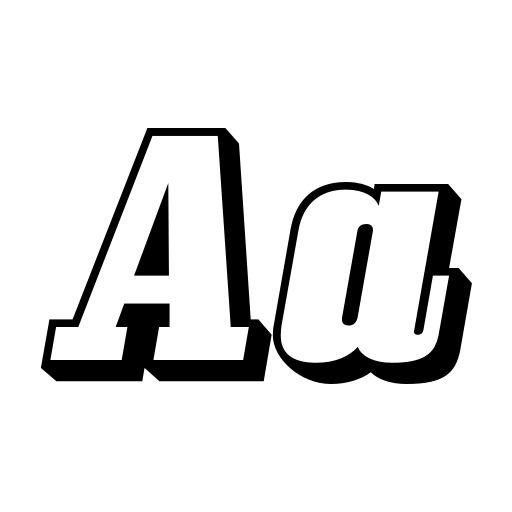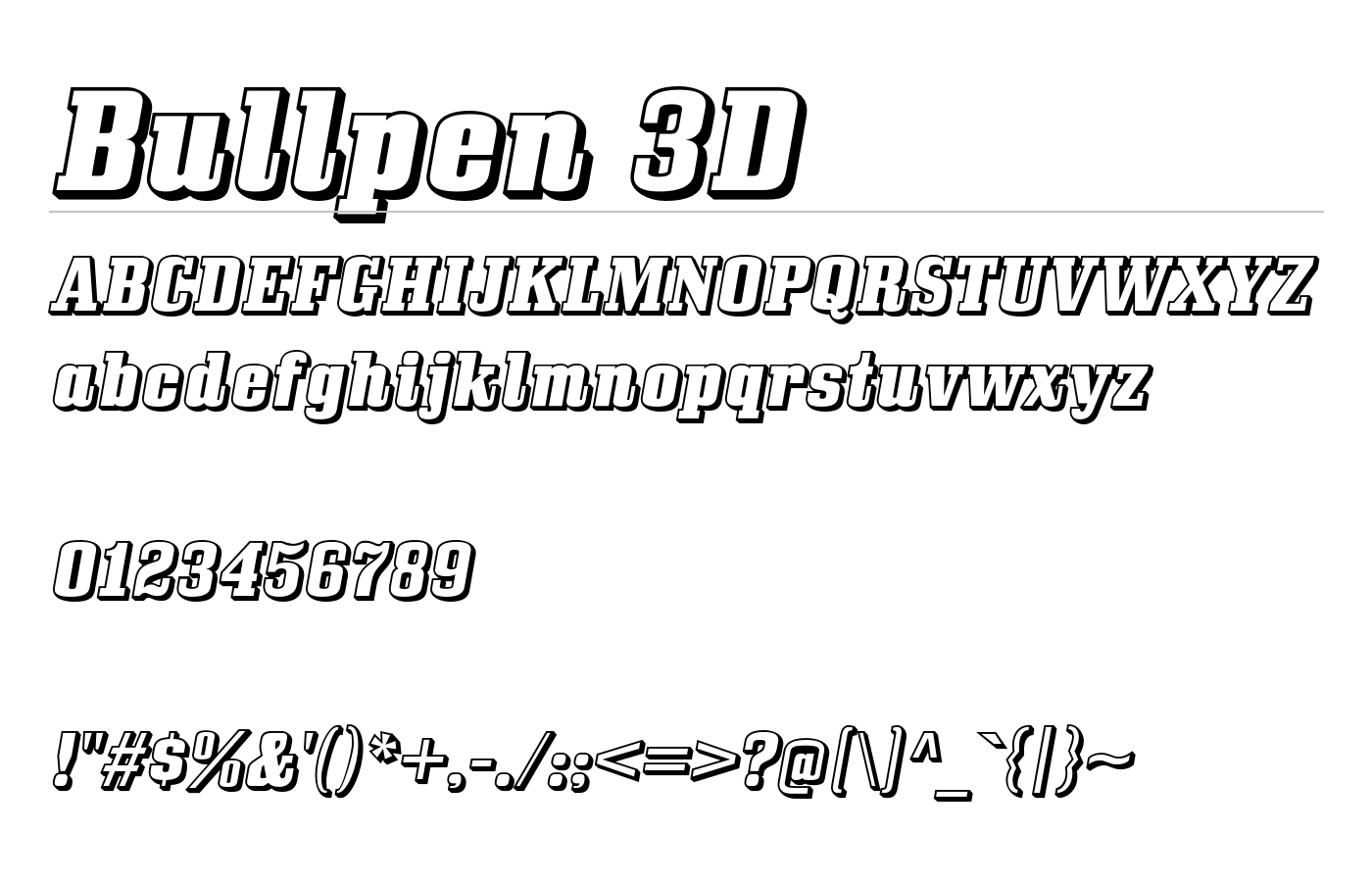
Bullpen 3D is a bold, condensed serif font with a dynamic three-dimensional shadow effect that adds depth and personality. Its strong, slightly italicized letterforms and high contrast strokes make it perfect for eye-catching headlines, sports branding, and retro-inspired designs that need a confident, energetic vibe. This font works best where impact and style are key, giving a playful yet assertive feel to logos, posters, and packaging.
| Font family | Bullpen Font |
| Designer | Raymond Larabie |